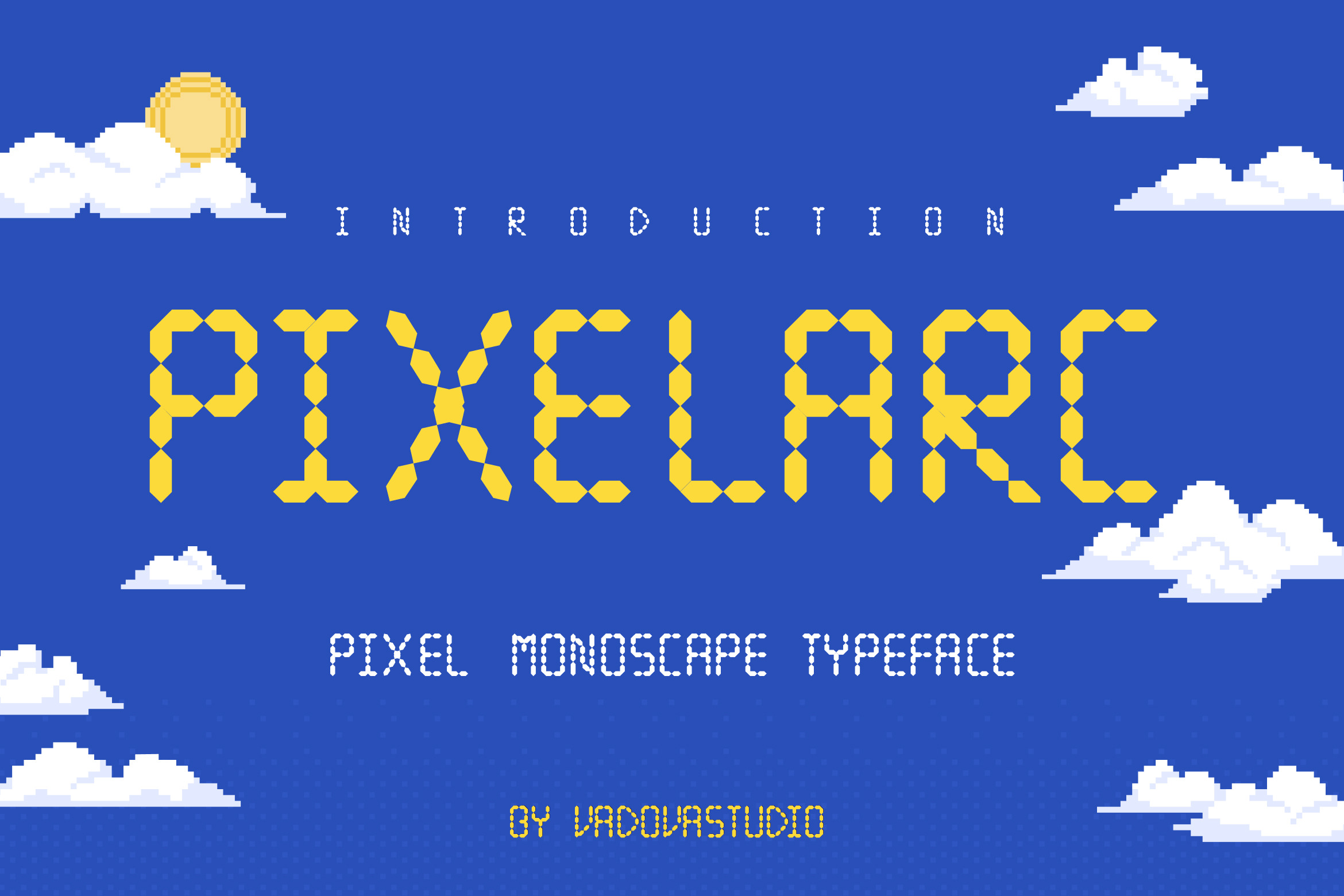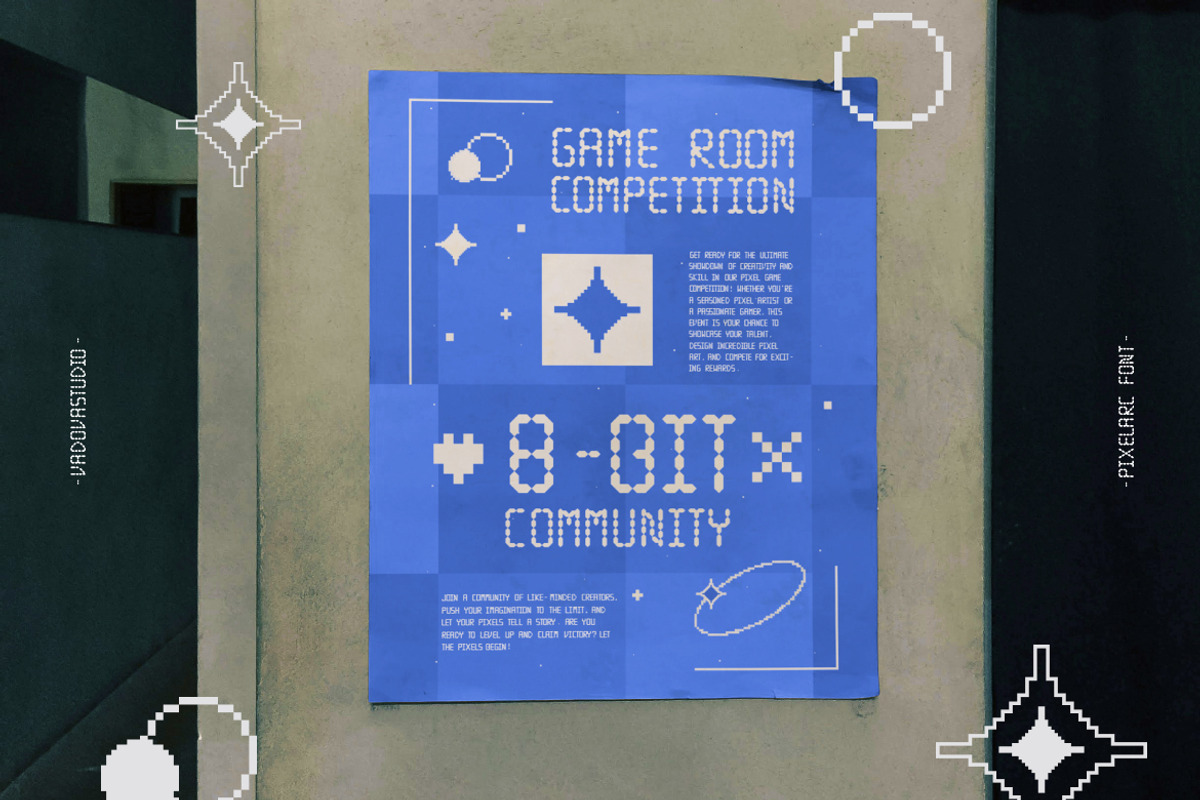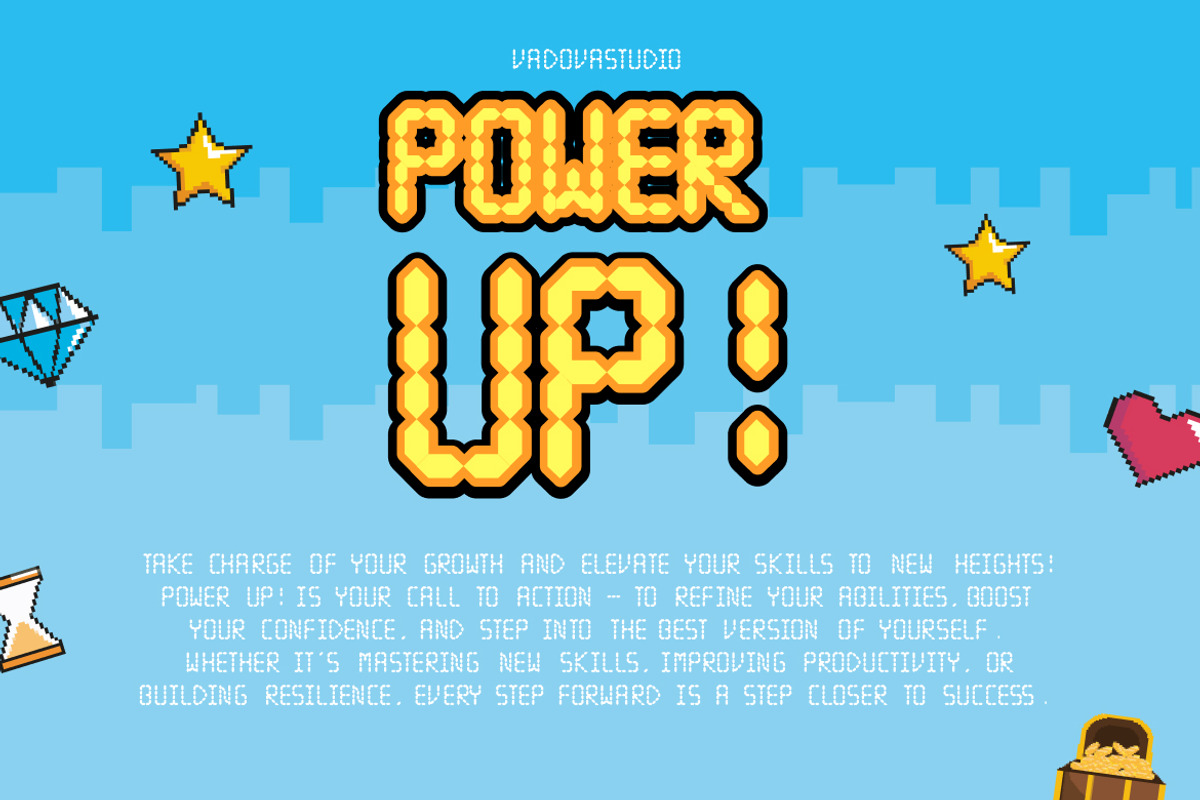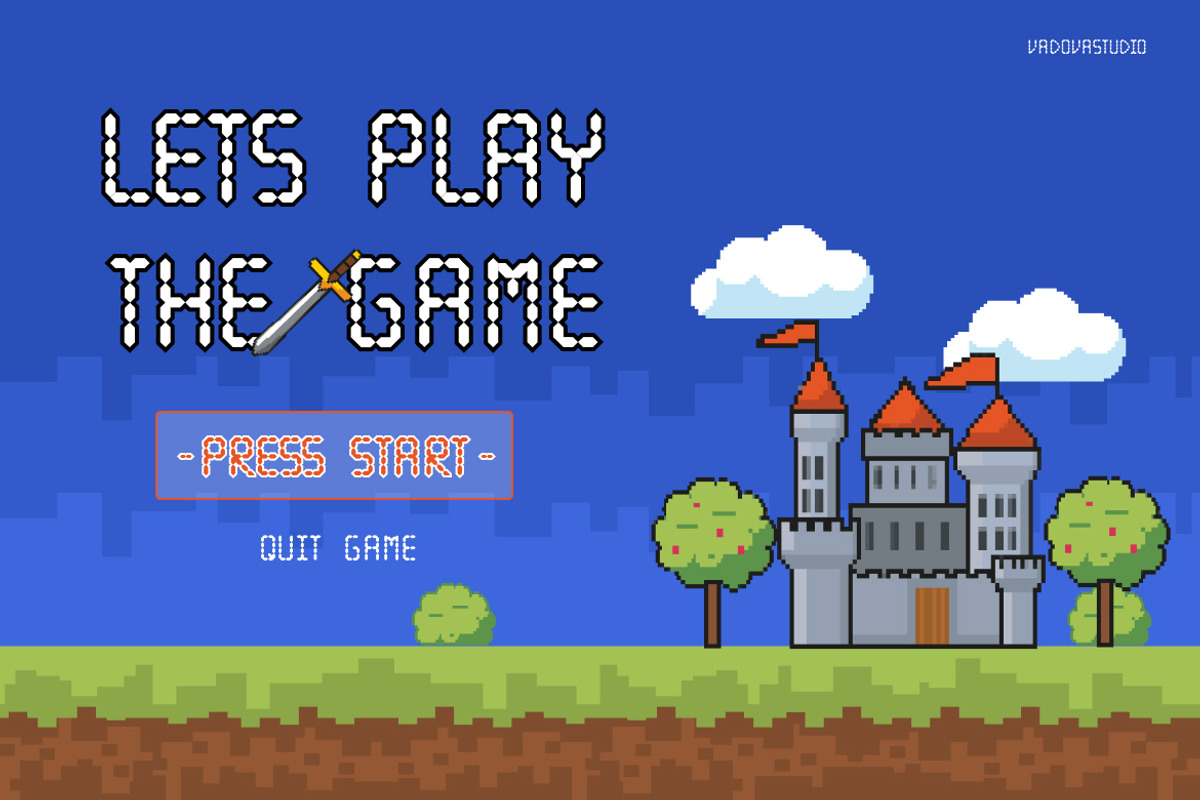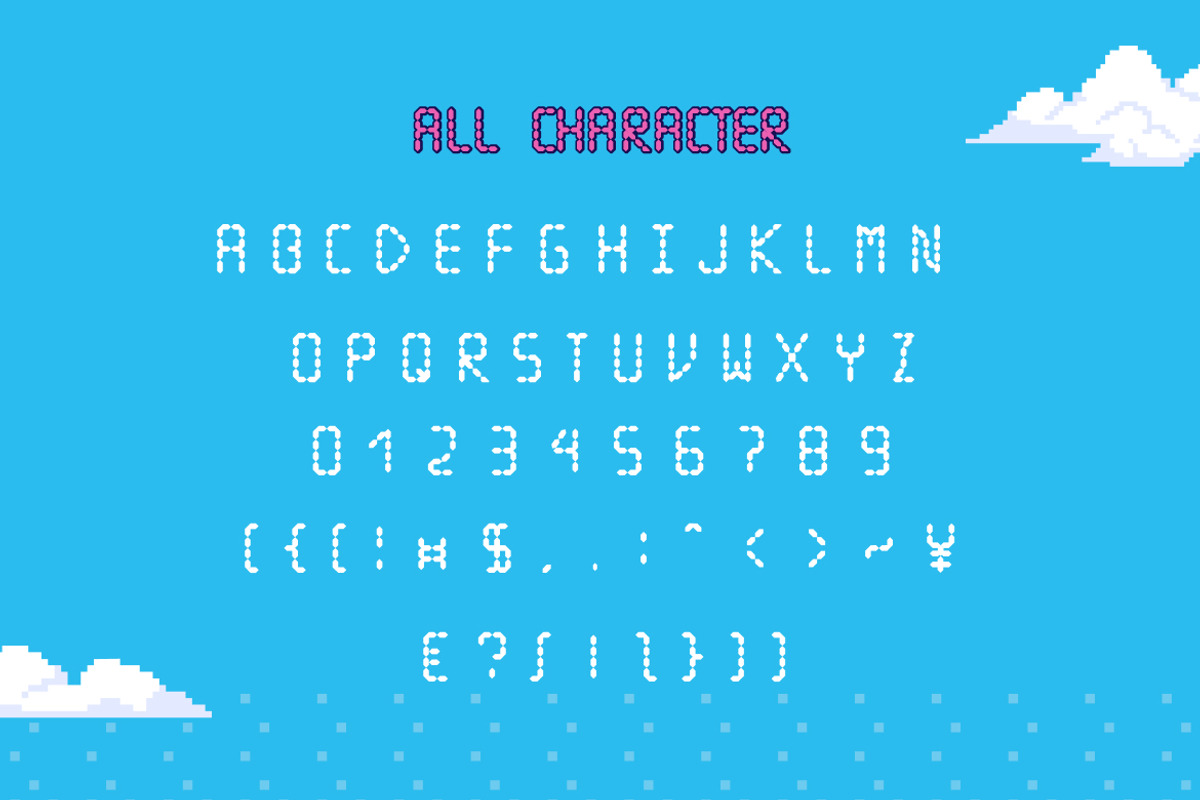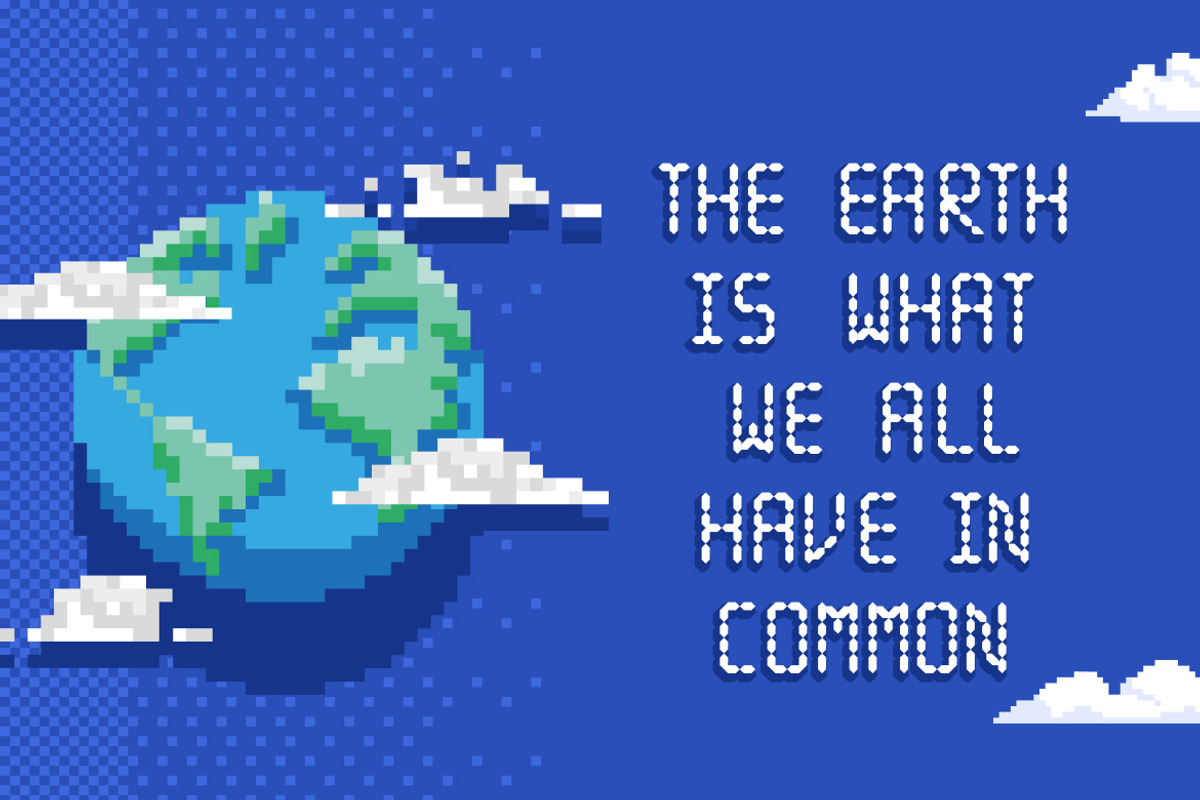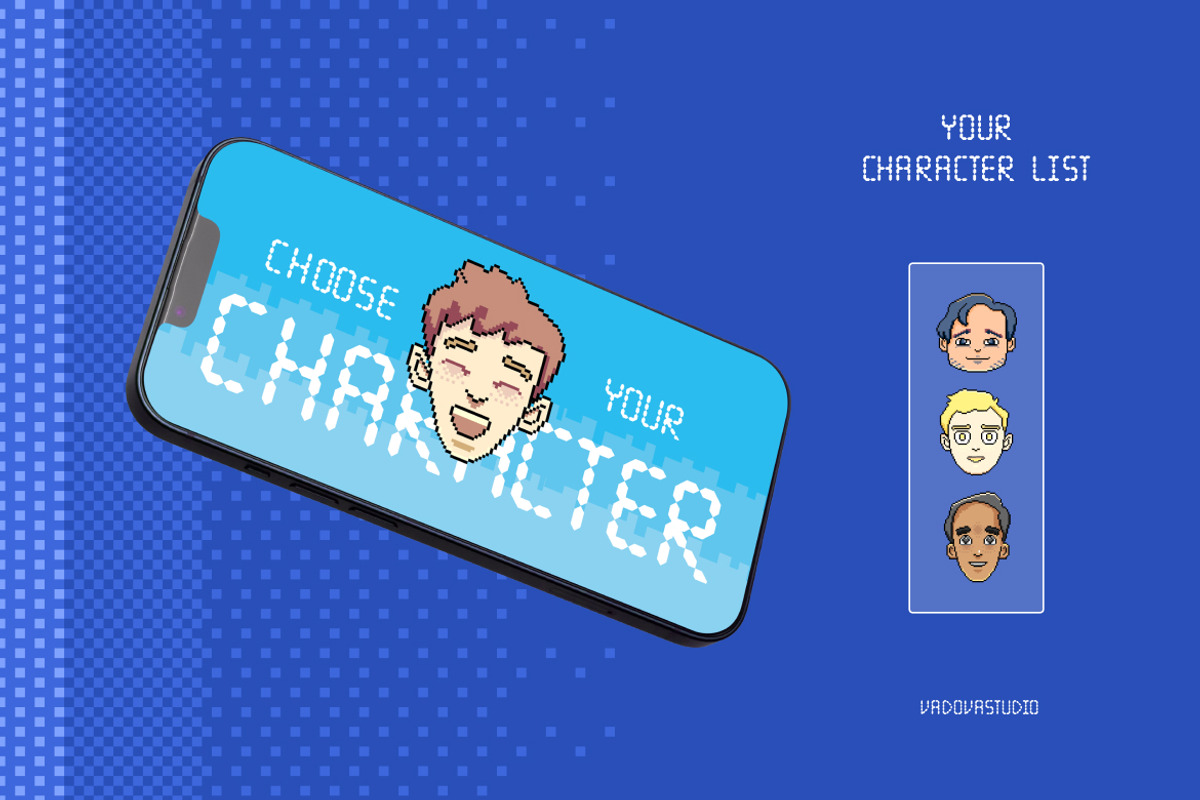
Pixelarc Pixel Monoscape Font
Pixelarcbrings back the nostalgic charm of the 8-bit era with a modern twist a pixel-perfect typeface that captures both playfulness and precision. Inspired by vintage arcade visuals and classic game interfaces, Pixelarc was designed for creators who want to infuse their projects with retro personality and digital energy. Its structured monospaced form and geometric rhythm make it the perfect fusion of classic video game nostalgia and contemporary digital aesthetics.
Each character is carefully built from stylized bone segments, giving the typeface a cartoonish yet eerie personality. The rounded terminals and bold proportions ensure strong readability, making Pixelarc not only decorative but also functional for both print and digital layouts.
Each letter in Pixelarc is built with a modular pixel grid, offering clean symmetry and easy readability even in compact designs. The bold, blocky letterforms evoke a sense of fun and familiarity, while their balanced construction ensures visual consistency across all media. It’s a typeface that feels nostalgic yet surprisingly versatile perfect for game titles, pixel art branding, YouTube thumbnails, tech posters, app interfaces, or event graphics that need to stand out with pixel-perfect detail.
- Distinct monospaced pixel construction for perfect grid alignment and clean digital balance
- Nostalgic 8-bit inspired style that captures the spirit of classic arcade visuals
- Geometric and modular letterforms for visual consistency across layouts
- Works beautifully for logos, game titles, posters, and digital interfaces
- Multi-language support for global creative flexibility
- Optimized for both print and digital readability
- Bold character presence without sacrificing legibility
- Ideal for retro, gaming, and creative branding projects
Relevance and Use Cases is designers who appreciate nostalgia, structure, and originality. It doesn’t just decorate your text it defines your visual story. With every character echoing the charm of old-school pixels, Pixelarc captures the imagination of gamers, artists, and designers alike.